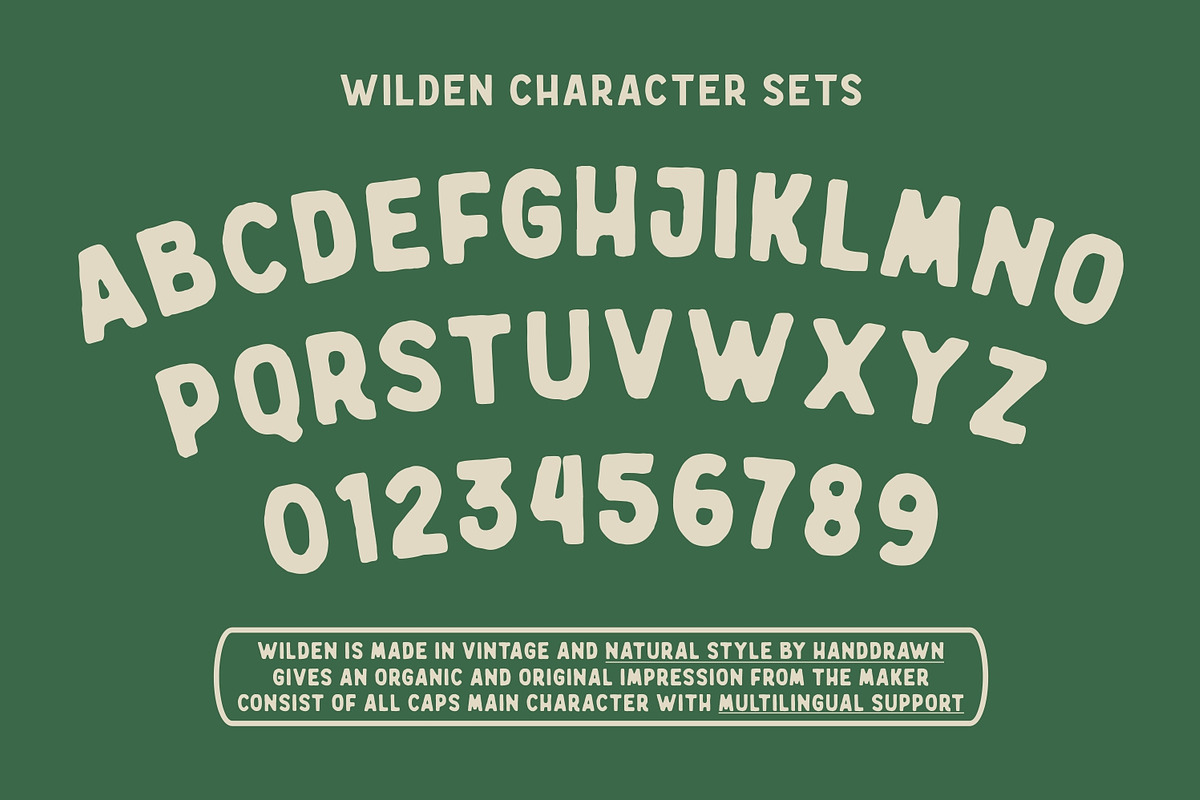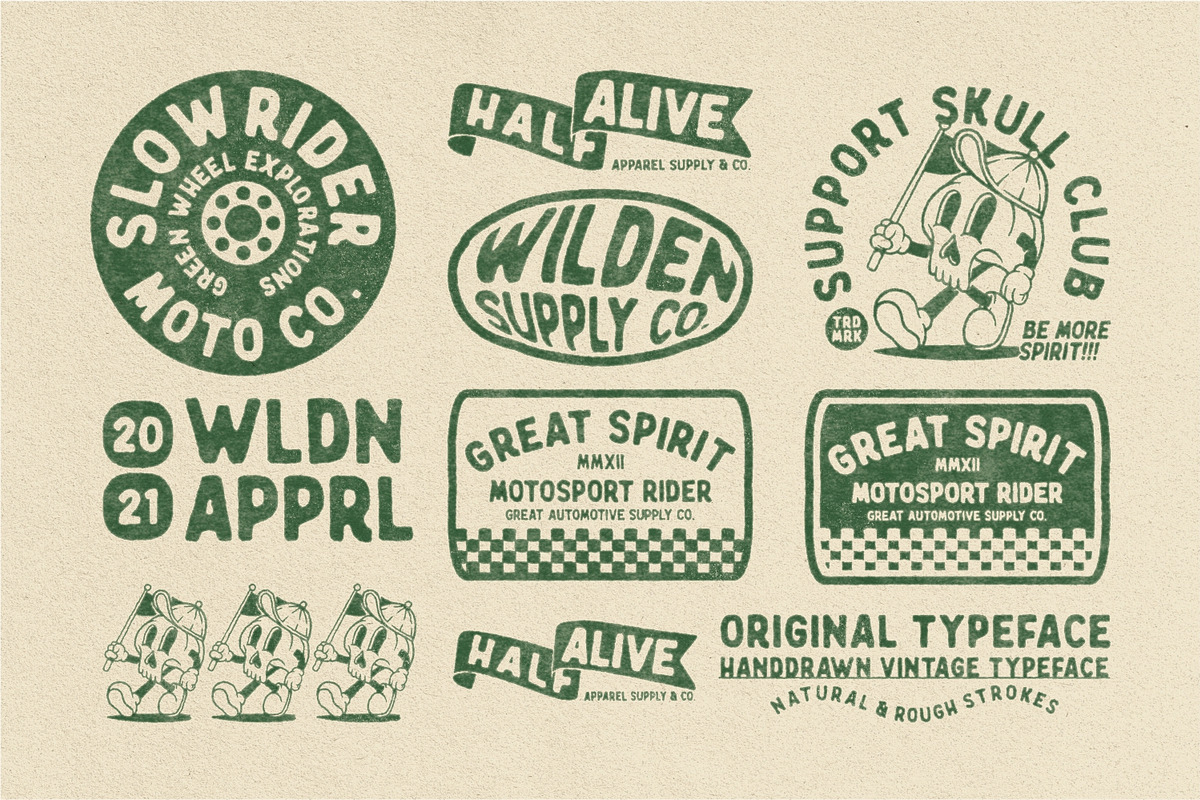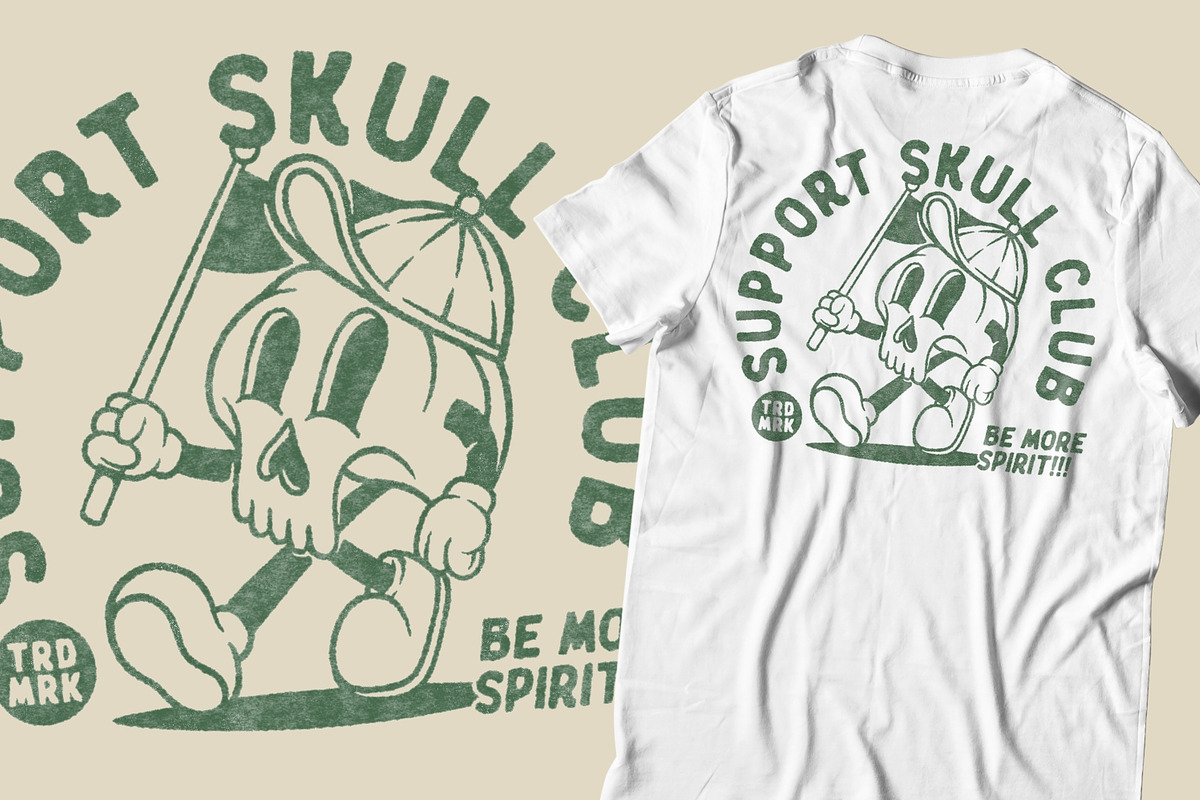
Wilden Font
Wilden is a vintage display font. This font gives a feel of vintage, classic, old, and based on handmade. It is perfect for people looking for a vintage aesthetic or logo type. Suitable for any graphic designs such as branding materials, t-shirts, print, business cards, logos, posters, t-shirts, photography, quotes .etc.
• All glyphs with Caps styles
• Numerals & Punctuations
• Multilingual characters